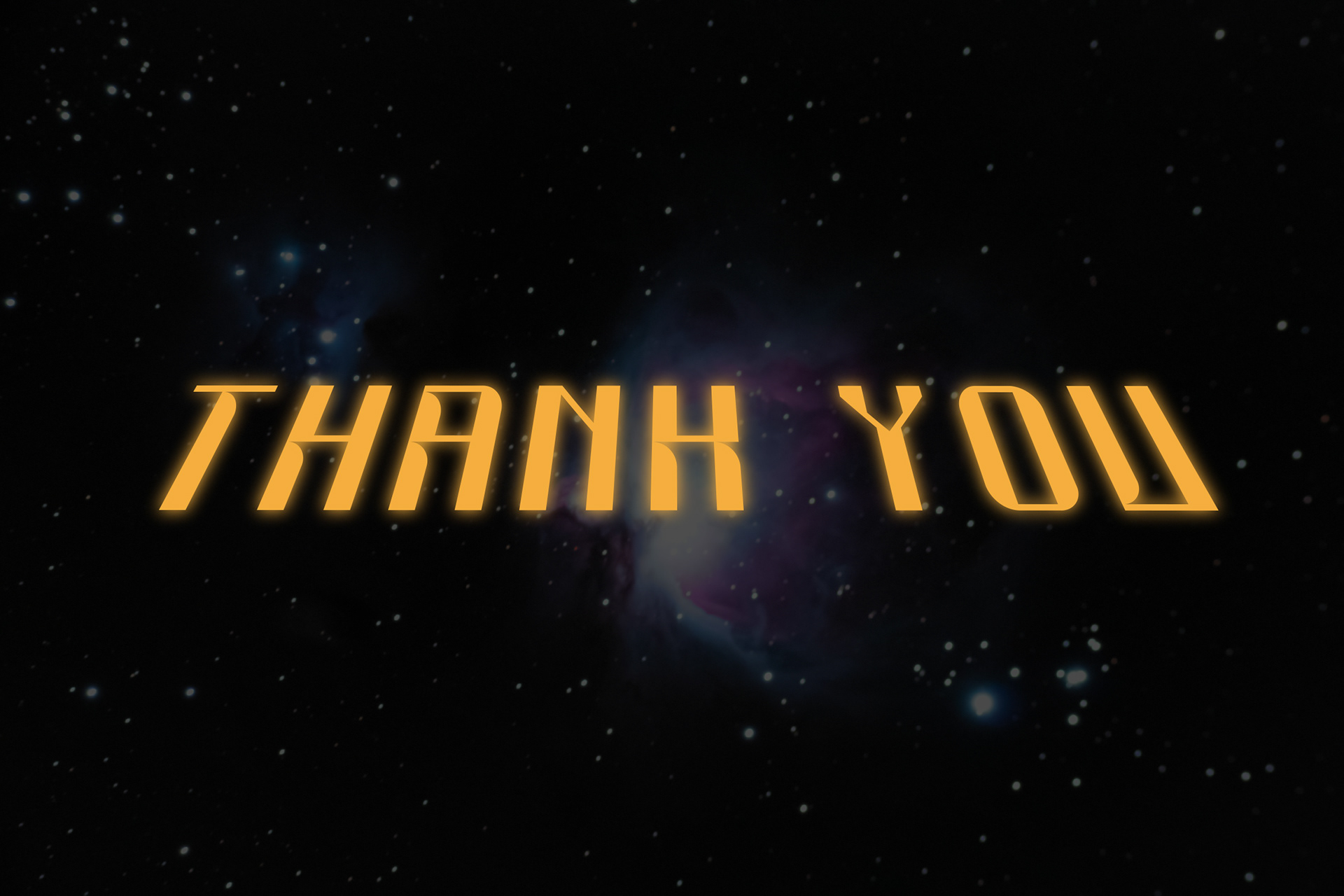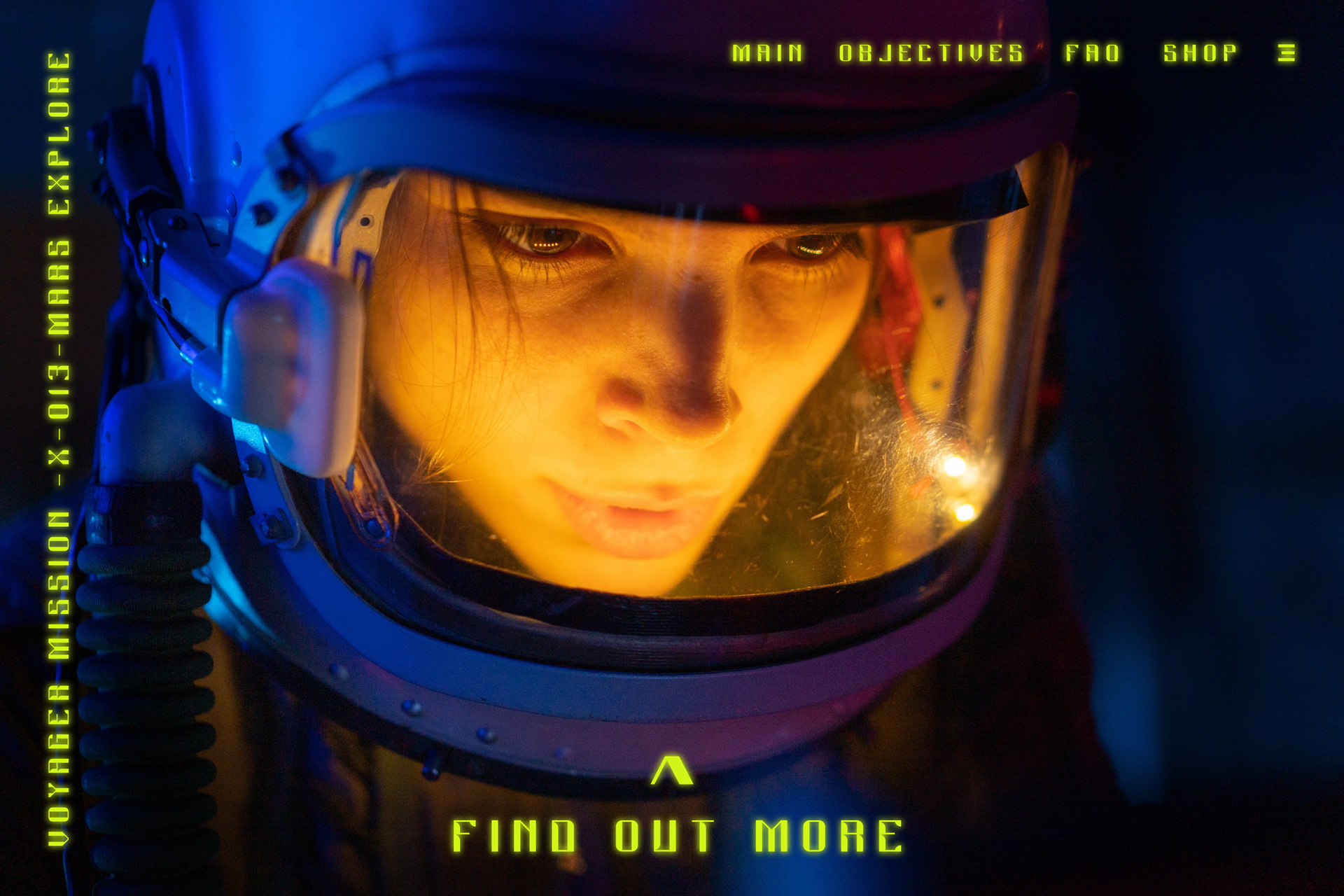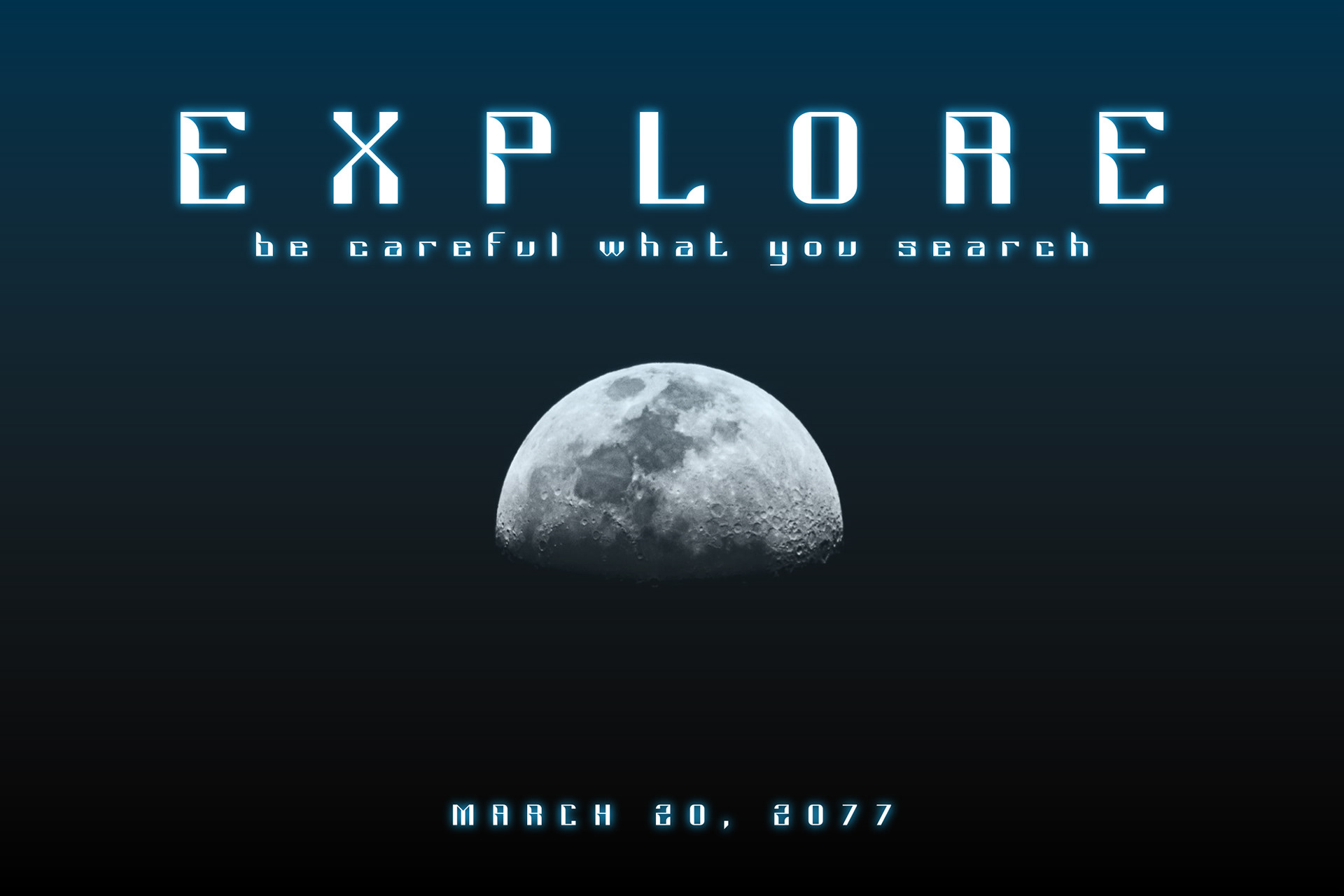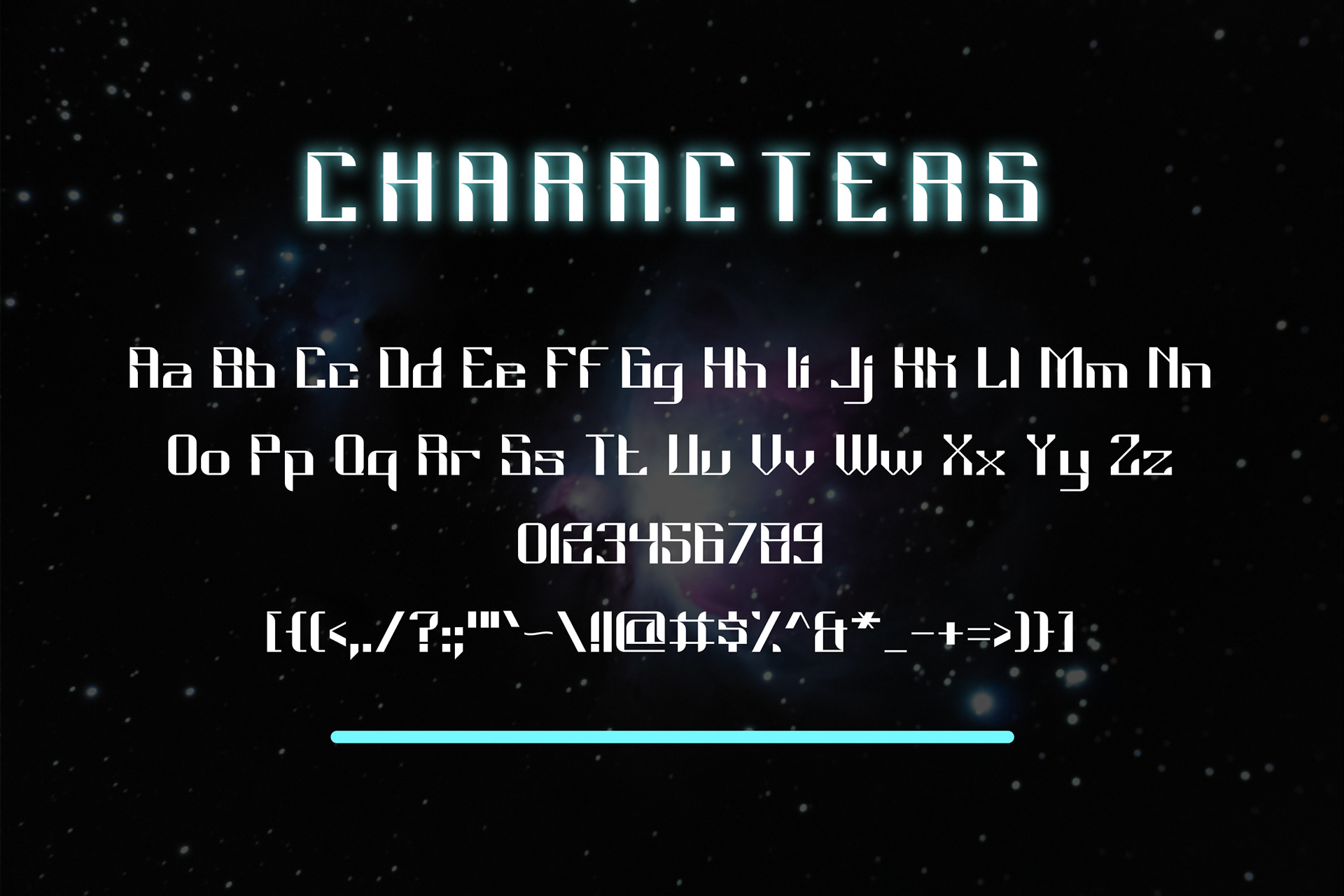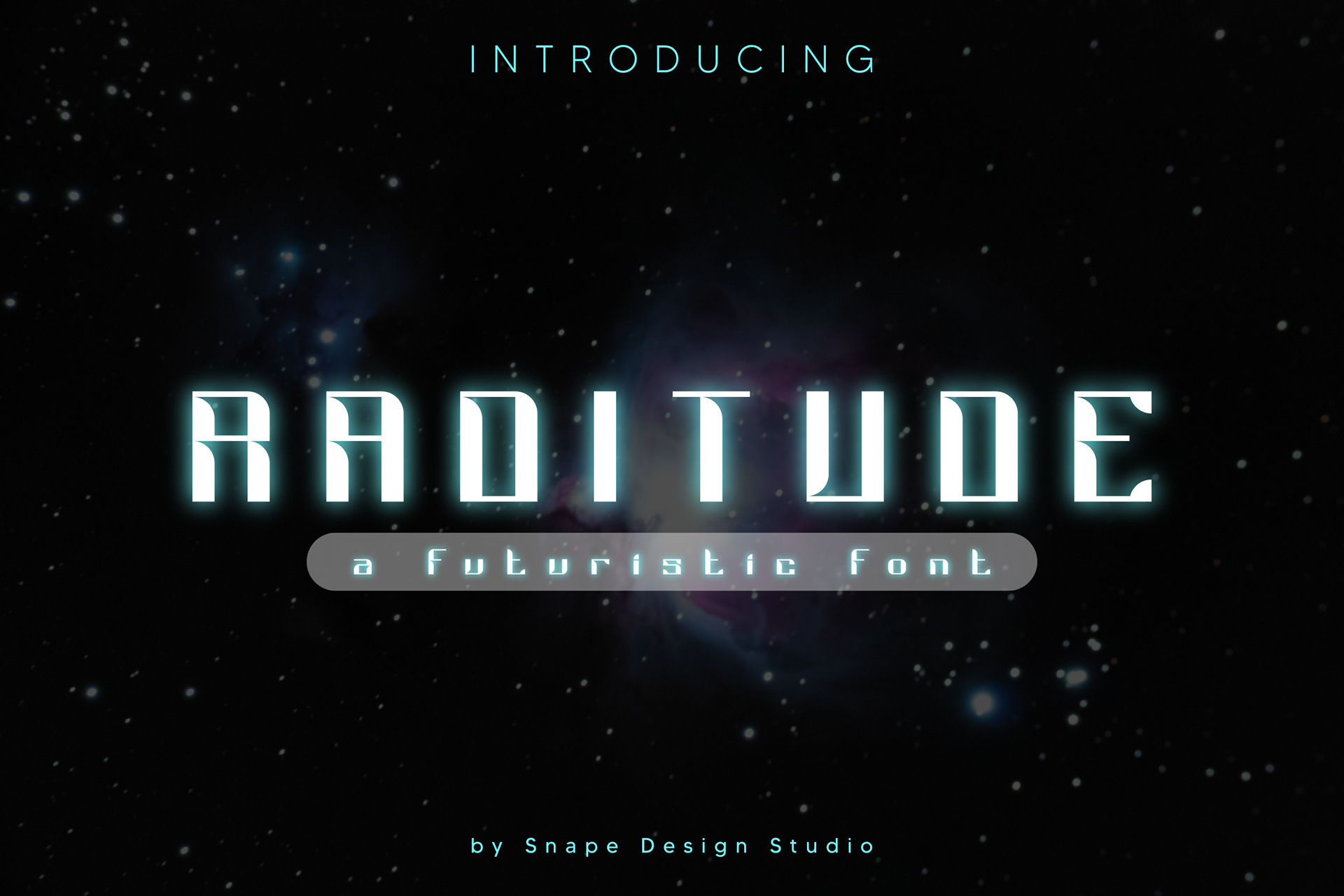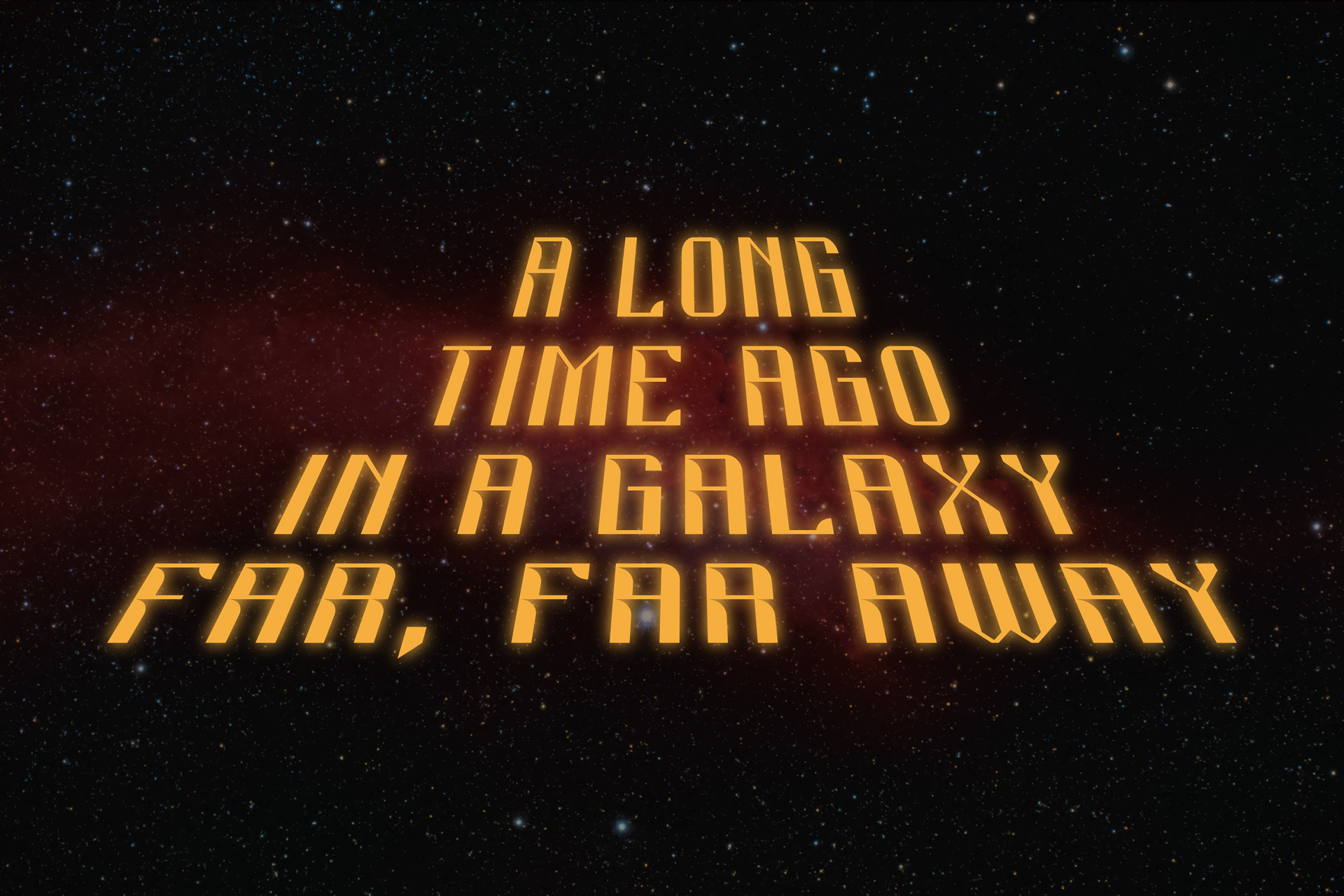
Raditute in a quirky and incredibly original display font. Add this font to your creative ideas and notice how it will make them stand out! Suitable for movie, documenter, film, logo, poster, game, book cover, headlines, title and many more projects. Add this font to your creative ideas and notice how it will make them stand out!
Raditude - Futuristic Display Font design by Ario Sabrang Damar publish under Snape Design Studio